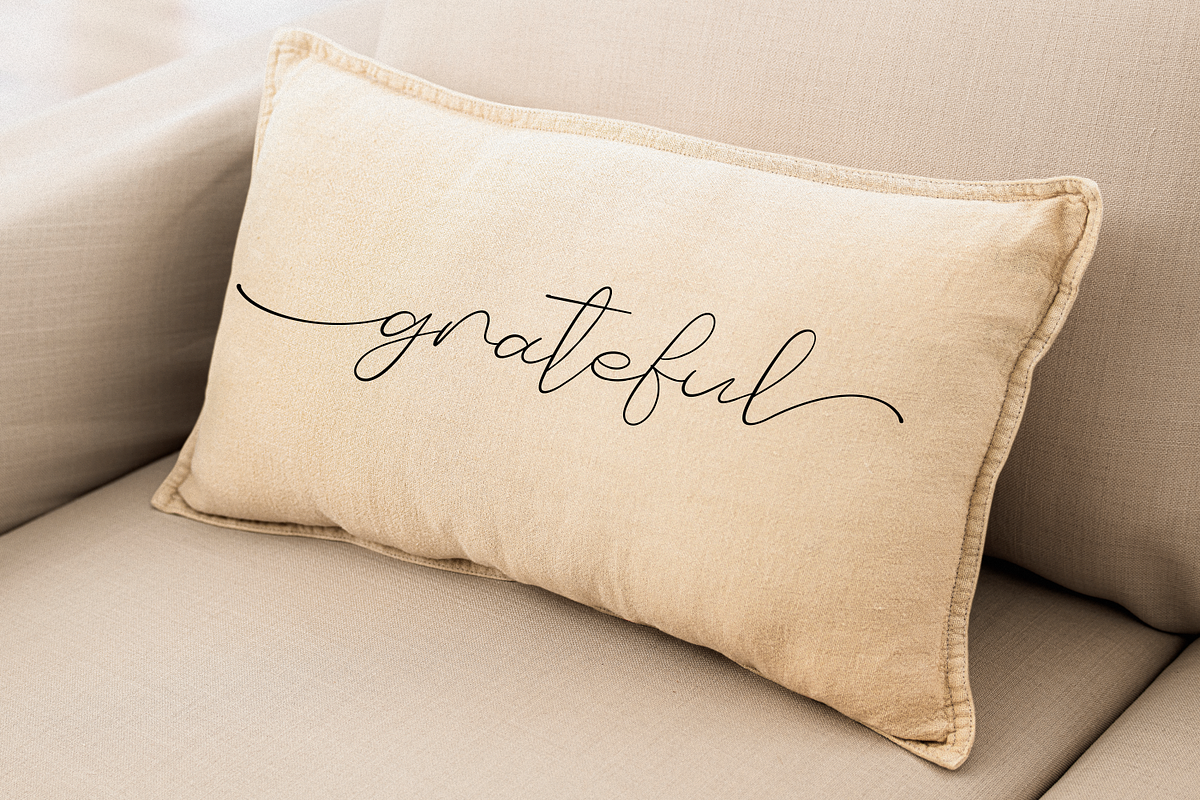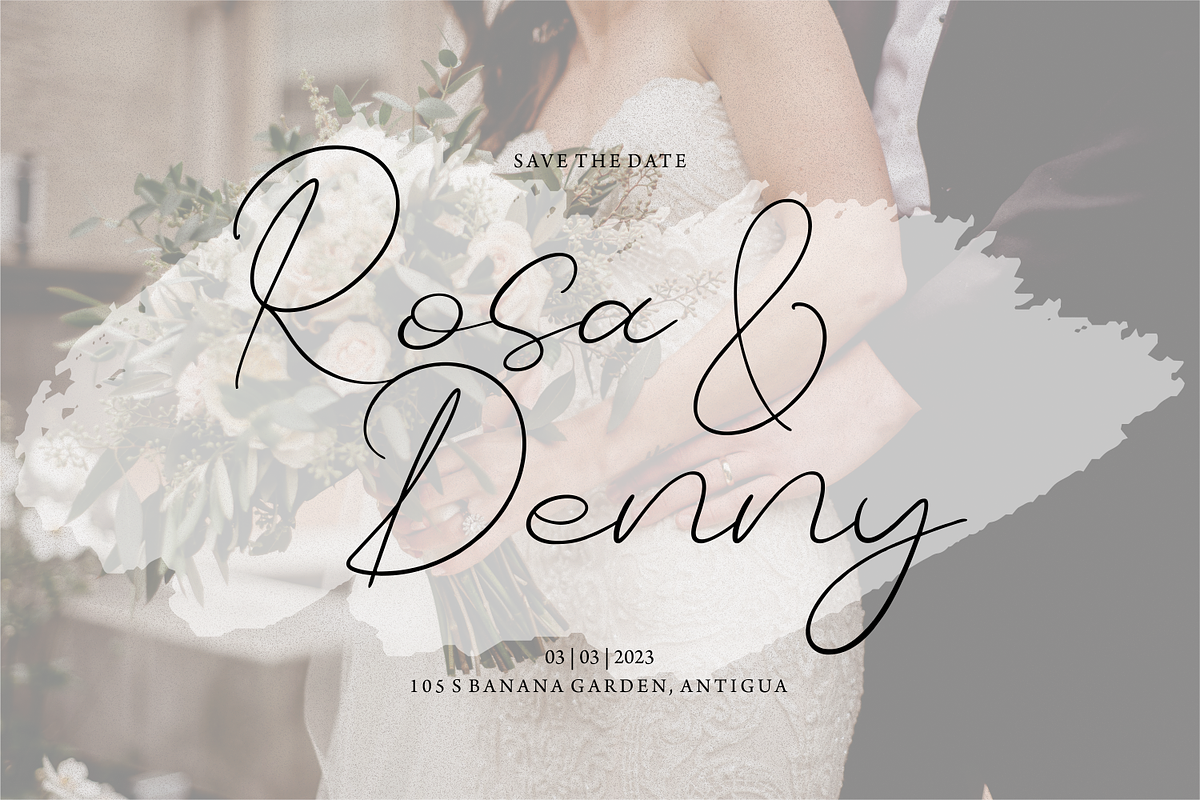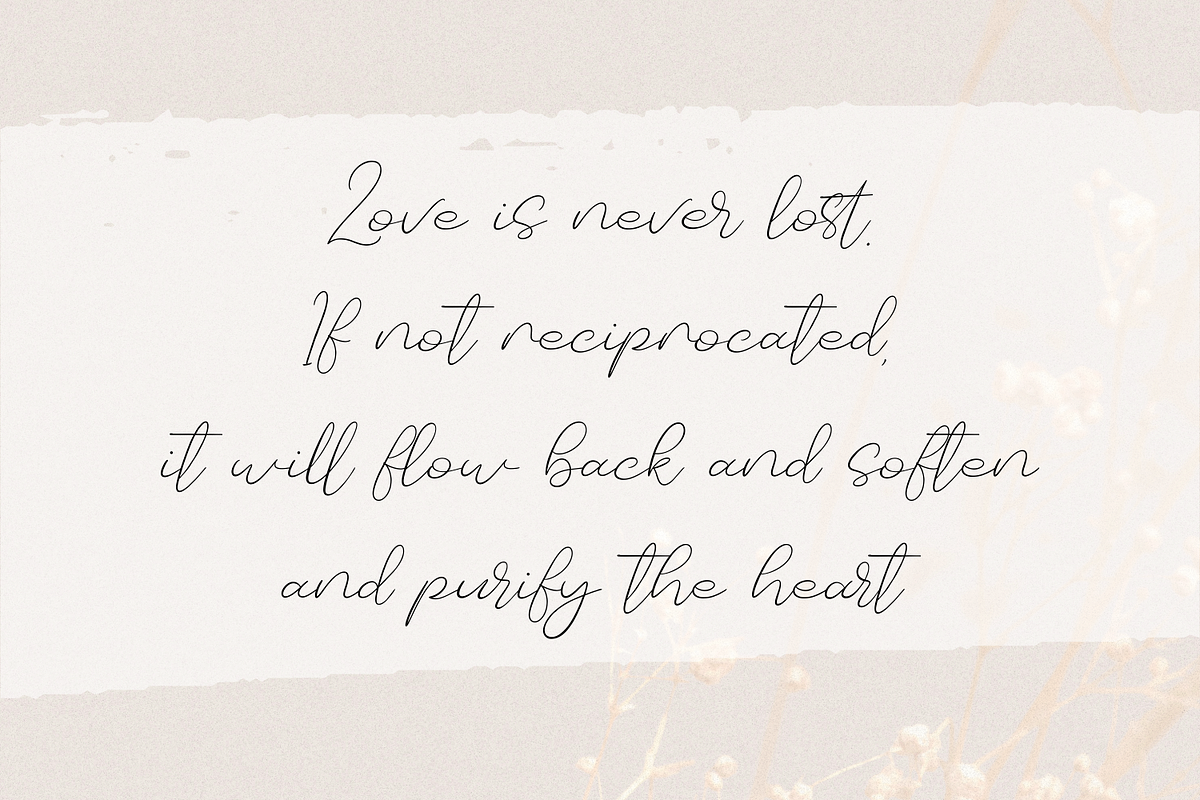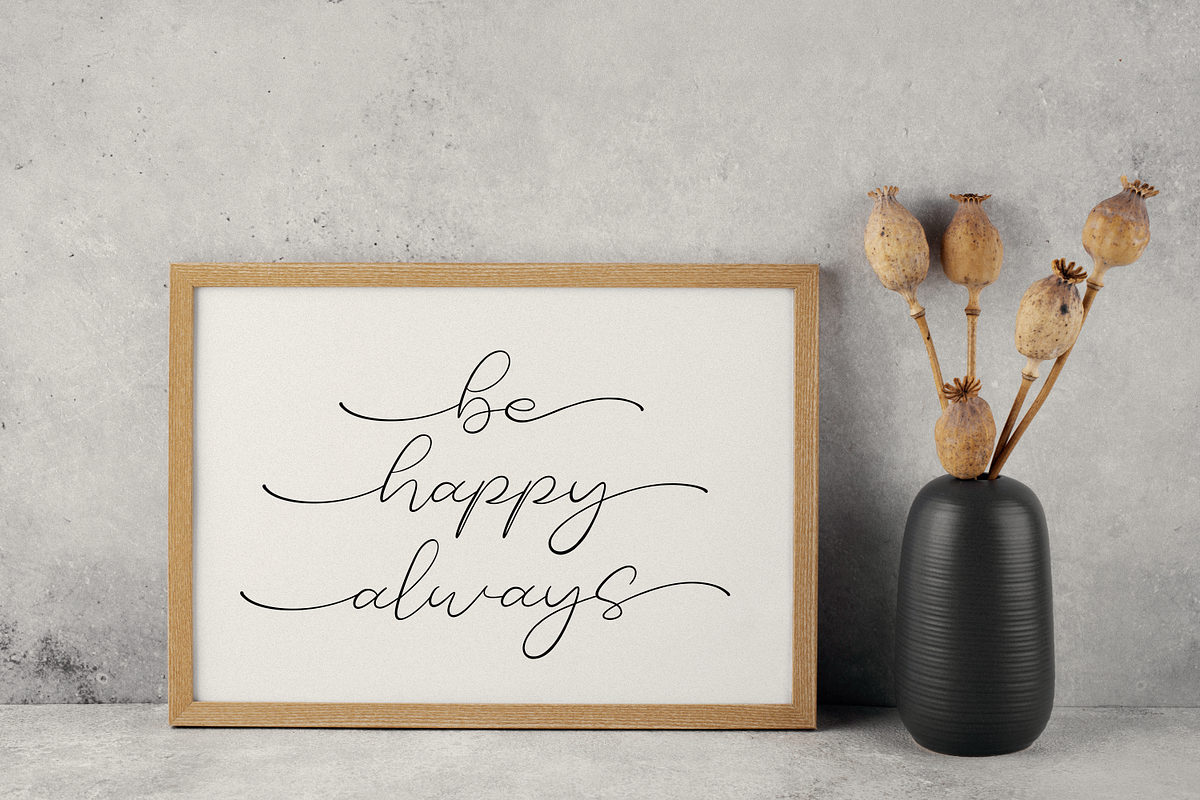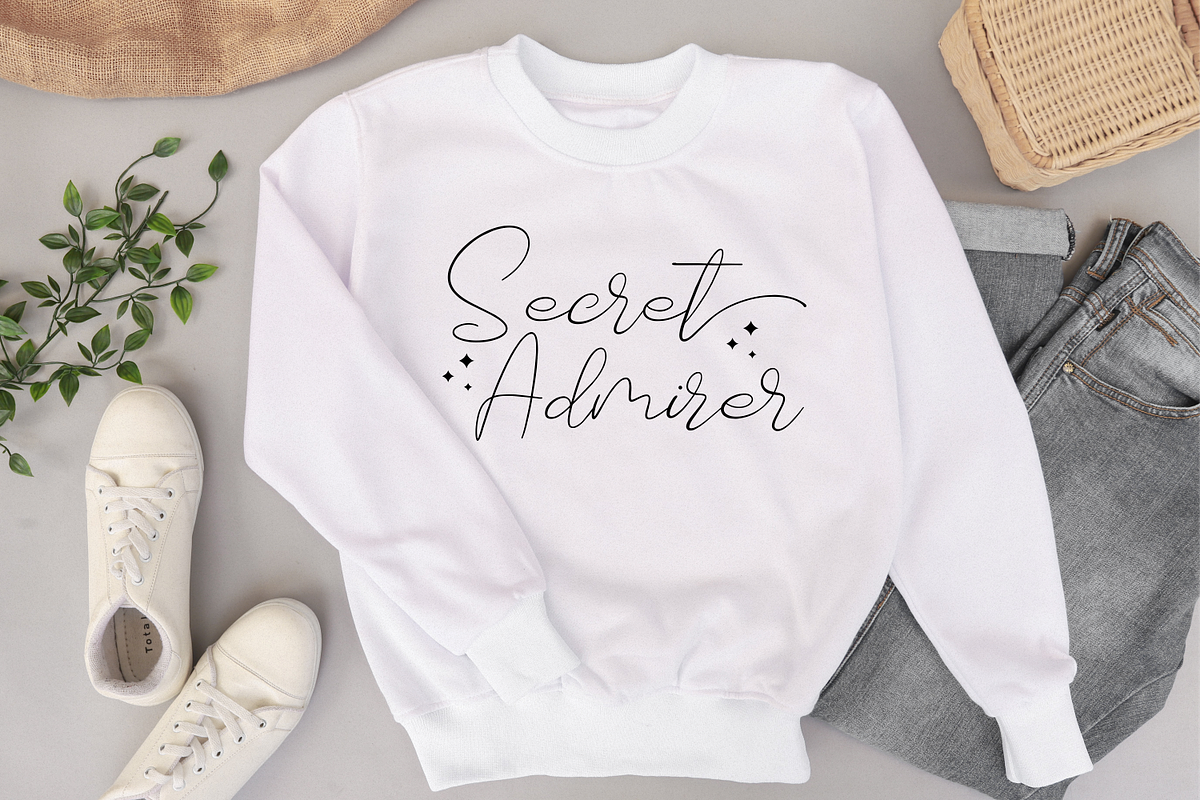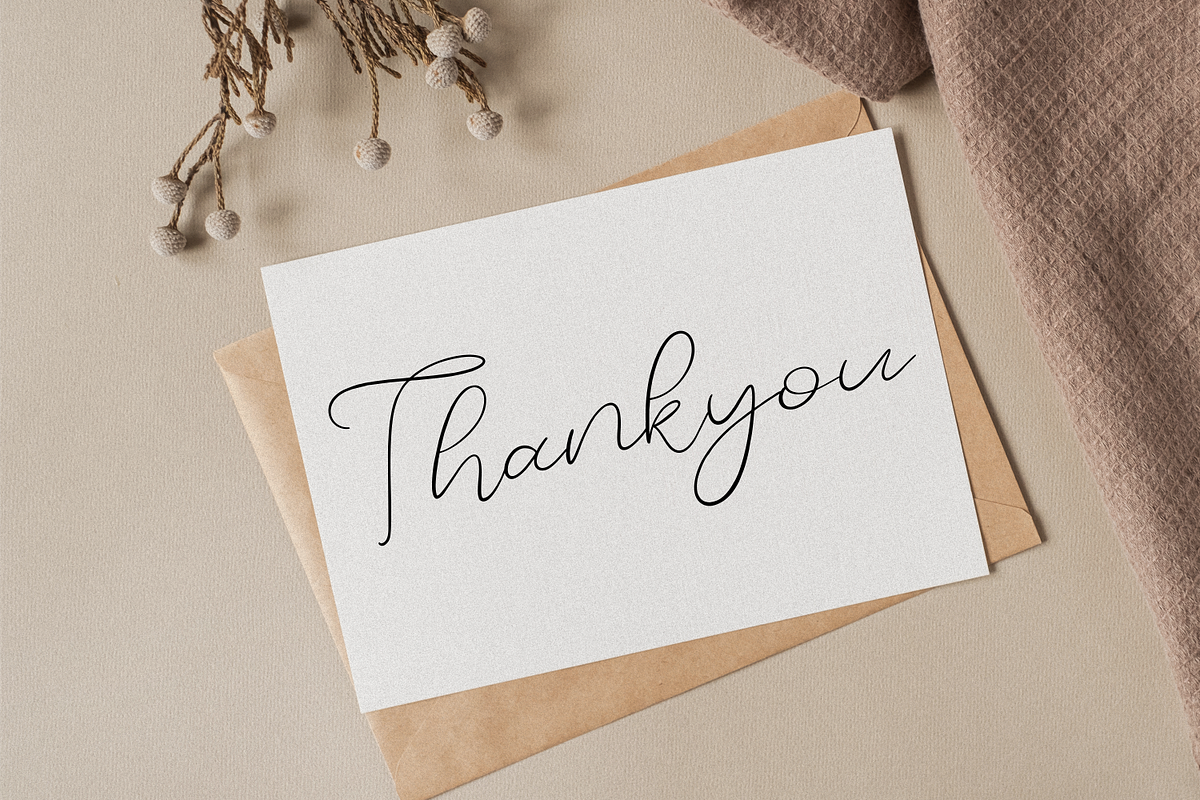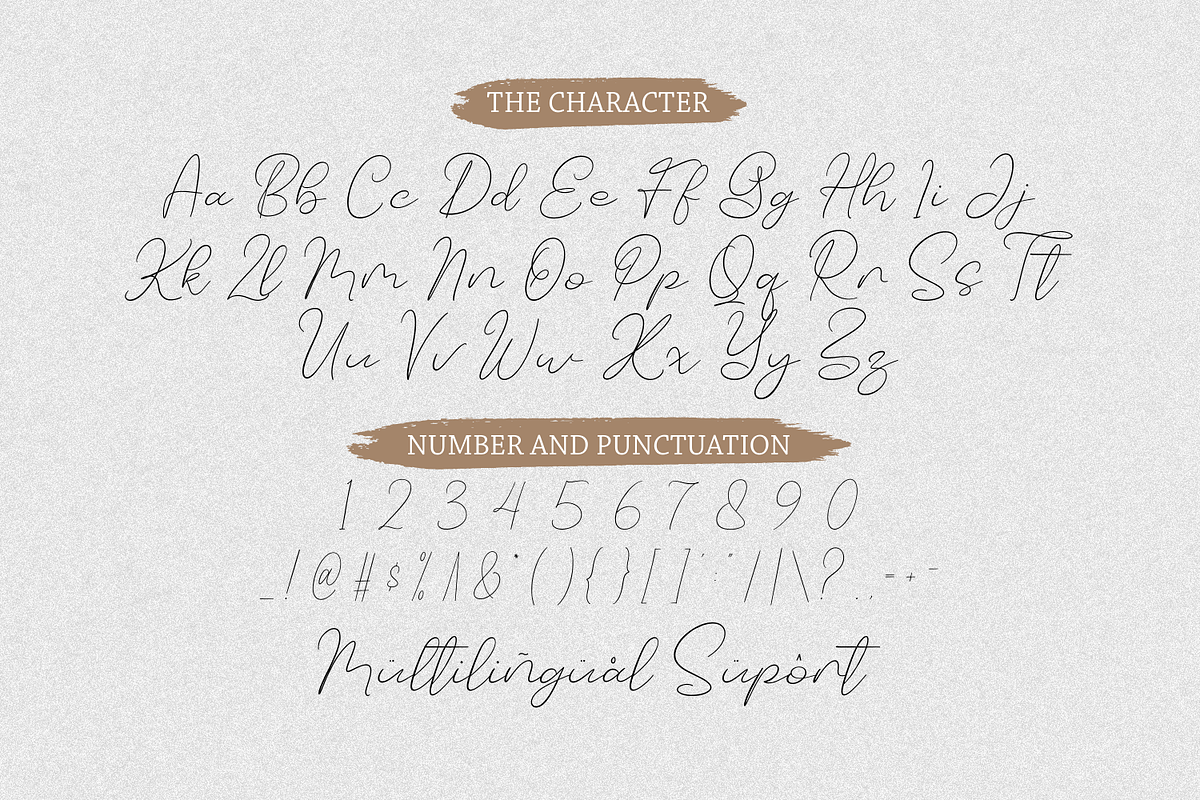
Tushy Perfume
Introducing Tushy Perfume by Forberas
Modern and beautiful handwritten script font! Great for wedding greeting cards, logos, branding materials, Invitation, business cards, quotes, posters, Cricut artwork and more!